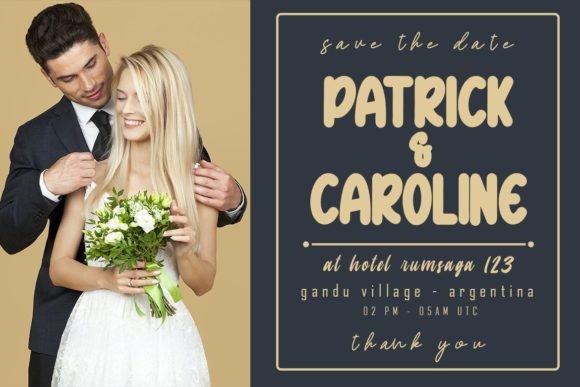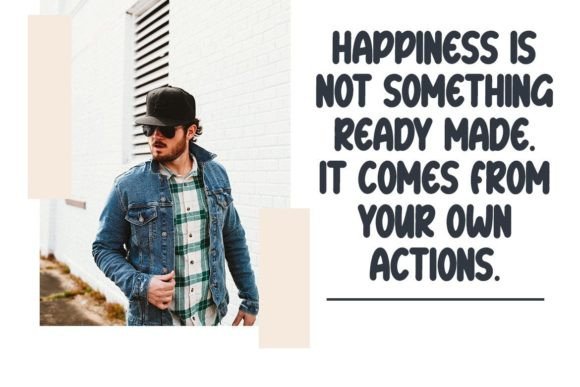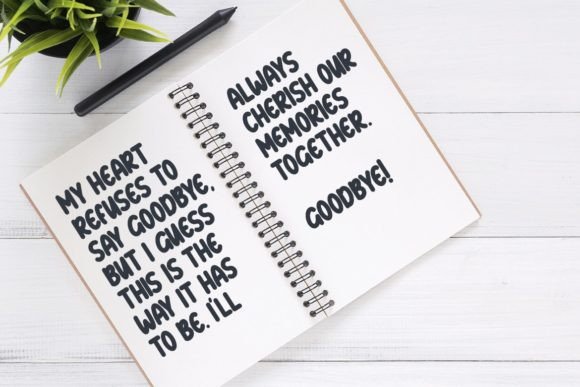
Introduction to Newray Font
Imagine you’re working on a creative project, and you’re stuck trying to find the perfect font to match your brand’s aesthetic. You’ve searched through countless free downloads, but nothing seems to capture the essence of your design. That’s where Newray Font comes in – a stunning monoline display font that combines elegance with a touch of script, making it the perfect design resource for any business or creative project.
With its high-quality design and versatility, Newray Font is a valuable asset for designers looking to elevate their work. Whether you’re working on a logo, packaging, or marketing materials, this font is sure to impress. Plus, its transparent background makes it easy to layer and customize to fit your design needs.
Honest Review: Newray Font
I recently had the chance to work with the Newray Font, and I’m excited to share my honest thoughts on this design resource. I was drawn to it initially because it’s available for a free download, which is always a plus when working on a creative project.
One of the things that works well with the Newray Font is its versatility. It’s a high-quality font that can be used in a variety of contexts, from body text to headlines. It’s also great for projects where you need a font with a transparent background, as it’s fully customizable.
Here are some of the key features that I liked about the Newray Font:
- ✨ High-quality design that looks great on various backgrounds
- ✨ Versatile font that can be used for body text and headlines
- ⚠️ Limited character set, which may not be suitable for projects that require a wide range of characters
Overall, I was impressed with the Newray Font, and I think it’s a great addition to any designer’s toolkit. While it may have some limitations, its high quality and versatility make it a valuable resource for creative projects.
Using Newray Font in Creative Projects
Use the Newray Font in your design projects, such as logos, graphics, and typography-based designs. The high-quality font is perfect for creating professional-looking designs.
Tips for Getting the Most Out of Newray Font
Use the Newray Font with a transparent background to create a clean and modern design. Experiment with different font sizes and styles to create visually appealing designs.
The Newray Font is commonly used in logos, business cards, and other typography-based designs. It’s also perfect for creating social media graphics and presentations.